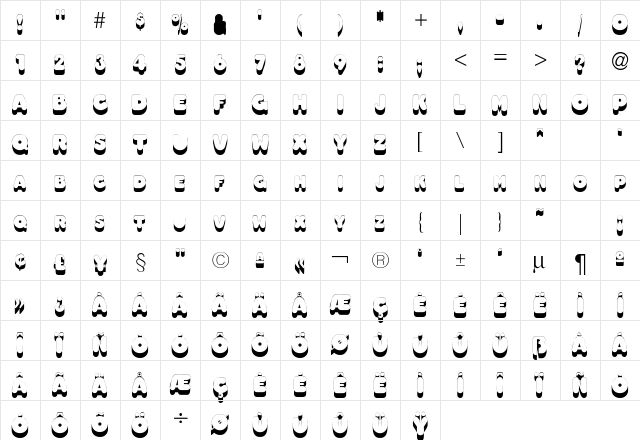
OleadsShadowSCapsSSK Regular
Design Context for OleadsShadowSCapsSSK Typeface
OleadsShadowSCapsSSK is built around its visual character rather than neutral utility — its distinctive forms are designed to make an impression at display sizes.
Font Pairing: Pair with a clean neutral sans-serif for body copy to let OleadsShadowSCapsSSK's character lead without overwhelming the composition.
Pro Tip: Treat OleadsShadowSCapsSSK as the centrepiece of your typographic hierarchy. One strong heading set in a decorative face can carry an entire layout.